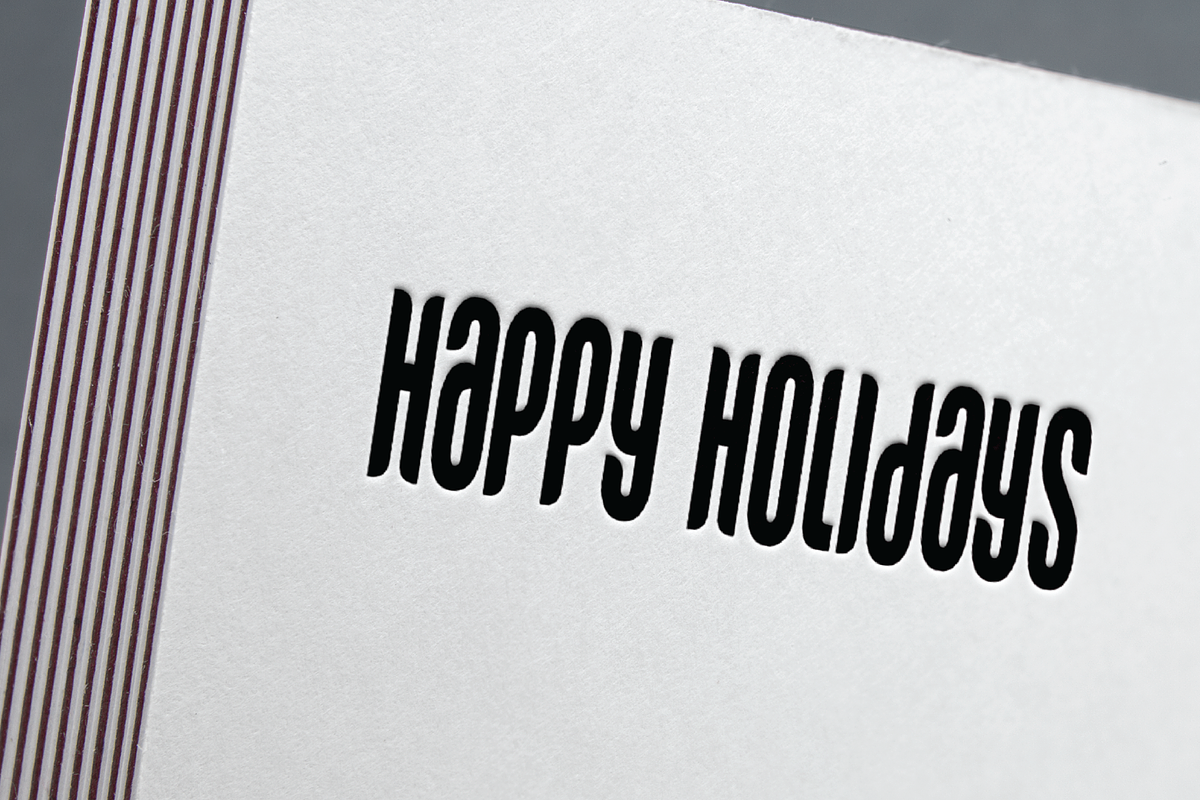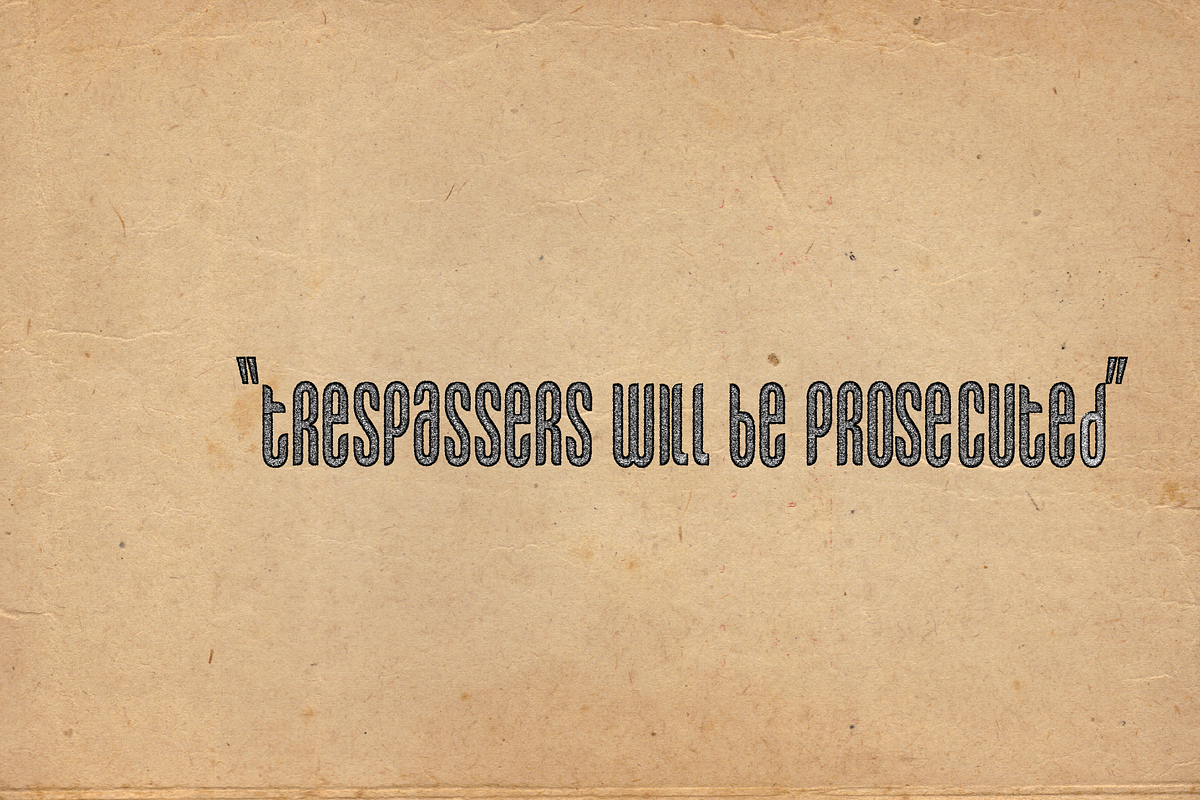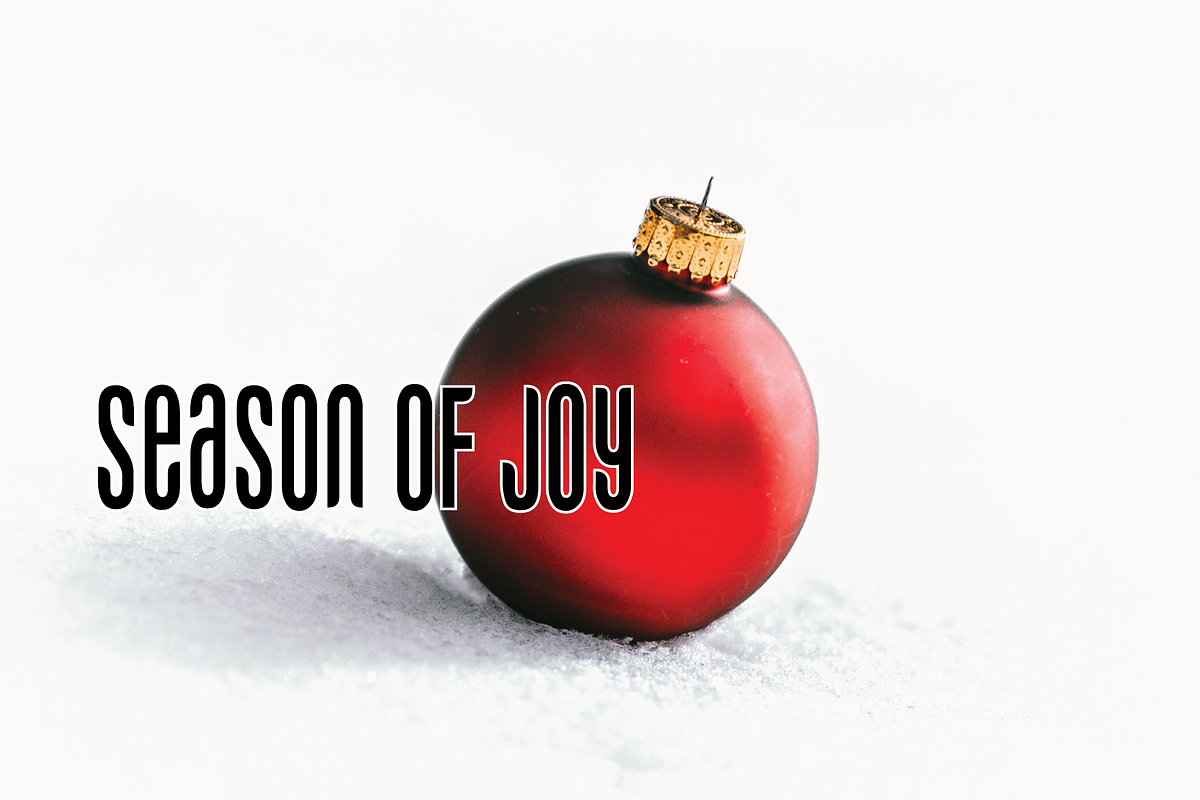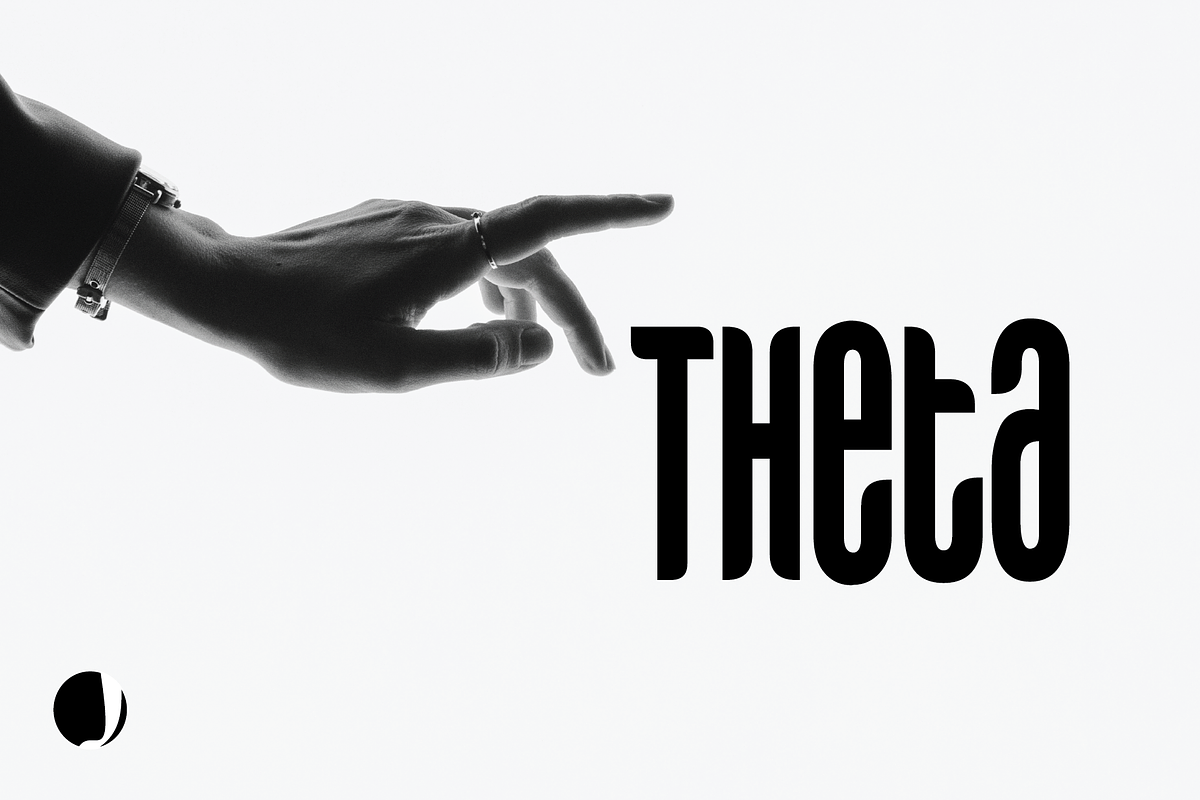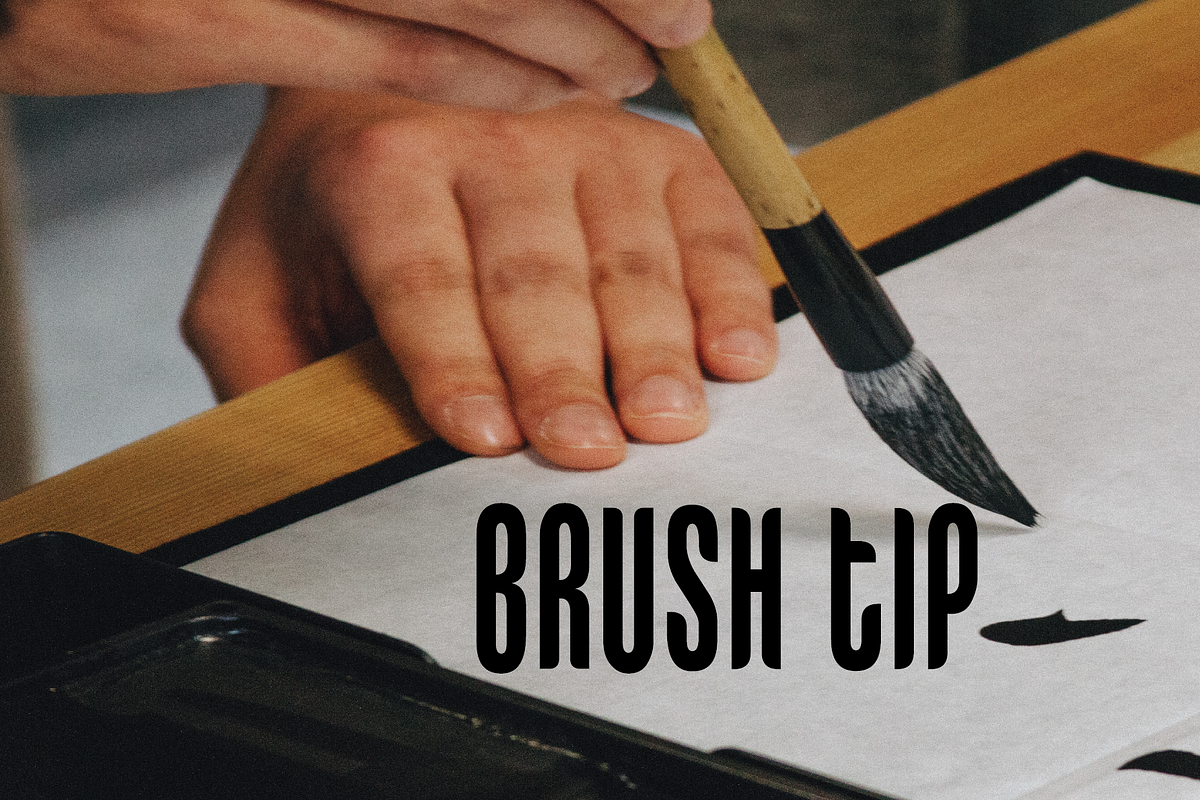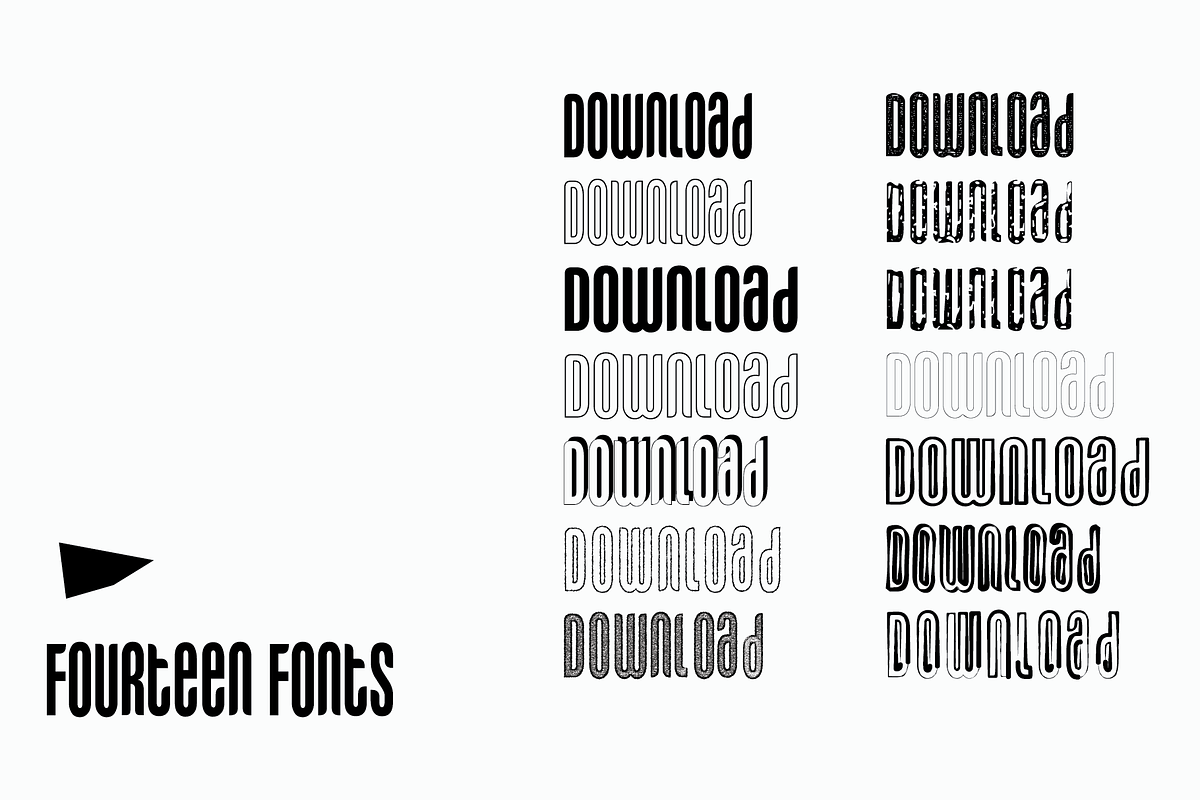
Theta-Brush tip
Theta is brush tip styled font. Inspired from the softness of the brush flowing and curves smooth. It has 14 different styles gives you complete range of letterpress, outlined, shadow, rough, retro and depressed. We hope you will enjoy this typeface and must have in your collection.